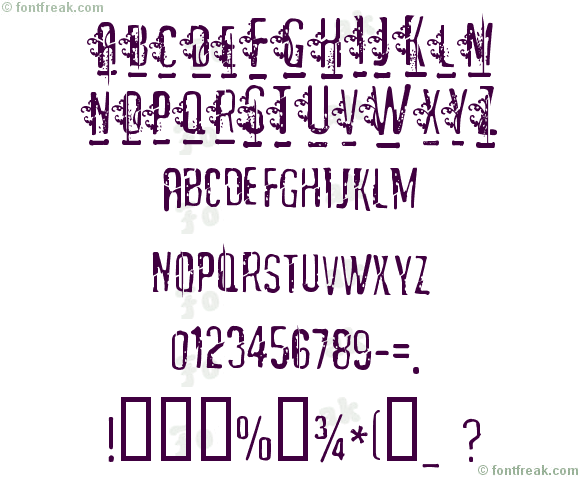
Matejo
Matejo, designed by Bumbayo Font Fabrik, is a striking display font that effortlessly combines artistic flair with modern sensibility. This decorative typeface stands out with its unique visual characteristics, featuring bold strokes and a playful, slightly irregular design. The varying stroke weights create an engaging contrast, while the ample spacing between characters enhances readability. This font exudes a sense of creativity and individuality, making it a perfect choice for projects that require a distinctive touch.
Ideal use cases for the Matejo font include wedding invitations, where its artistic style can beautifully convey romance and celebration. It also shines in movie posters, lending a bold statement that captures attention and intrigue. Restaurant menus can benefit from its unique aesthetic, creating an inviting atmosphere that reflects the personality of the establishment. Additionally, Matejo is well-suited for branding projects, especially for businesses looking to establish a memorable identity that stands out in a crowded market.
Targeted towards graphic designers, small business owners, and content creators, the Matejo font offers versatility and originality. Whether you're crafting a digital project or printed material, this font provides a fresh and engaging option that speaks to a diverse audience.